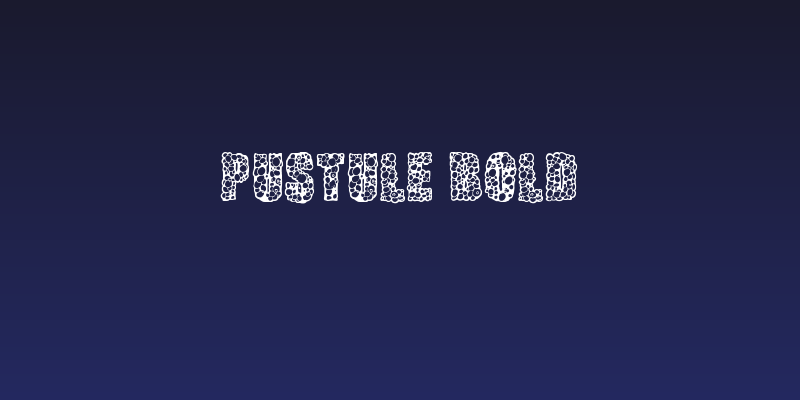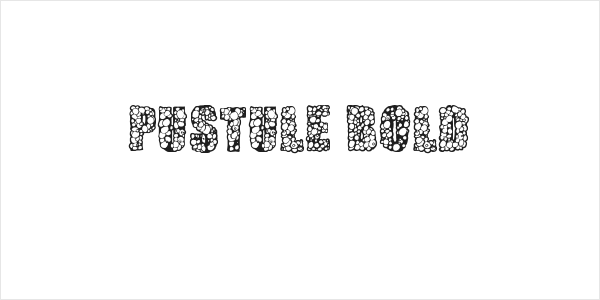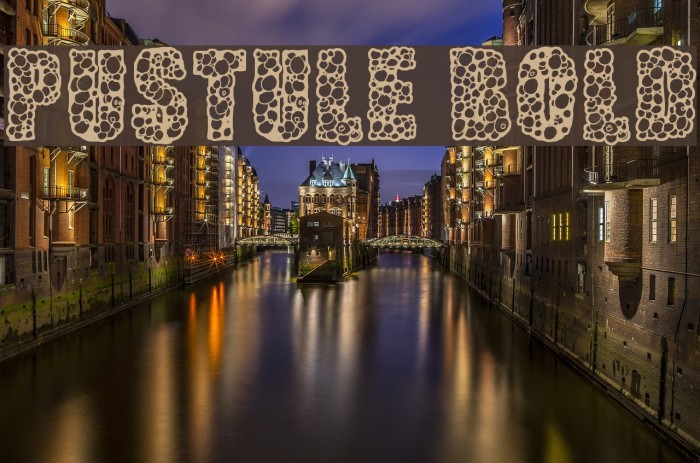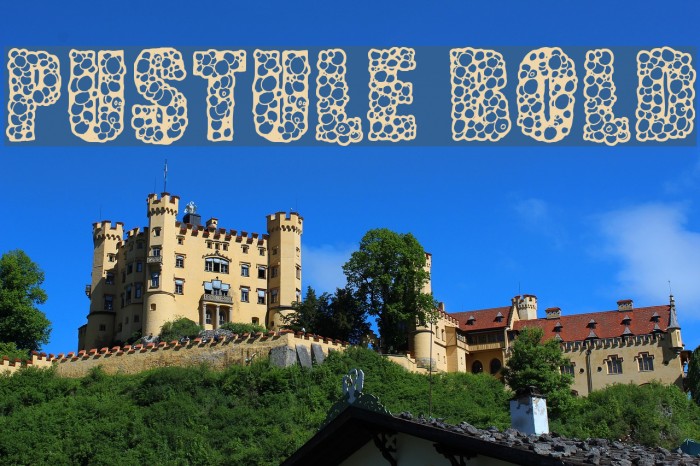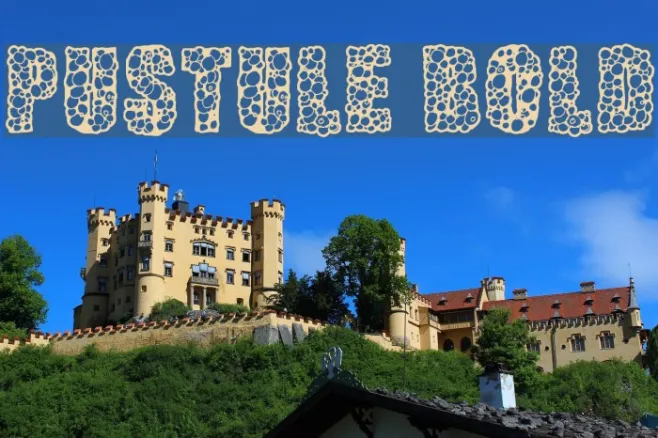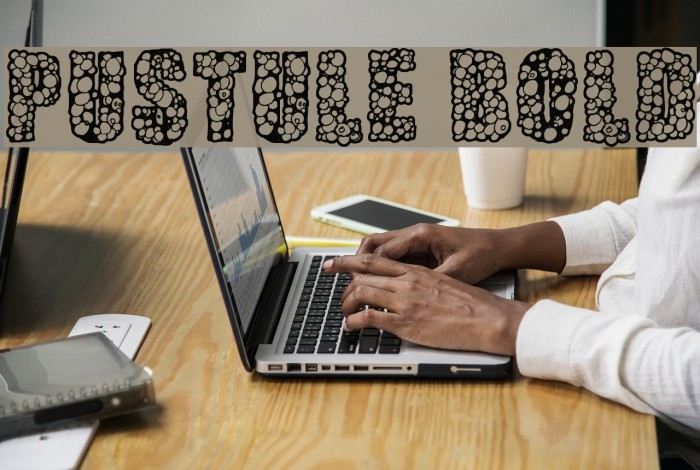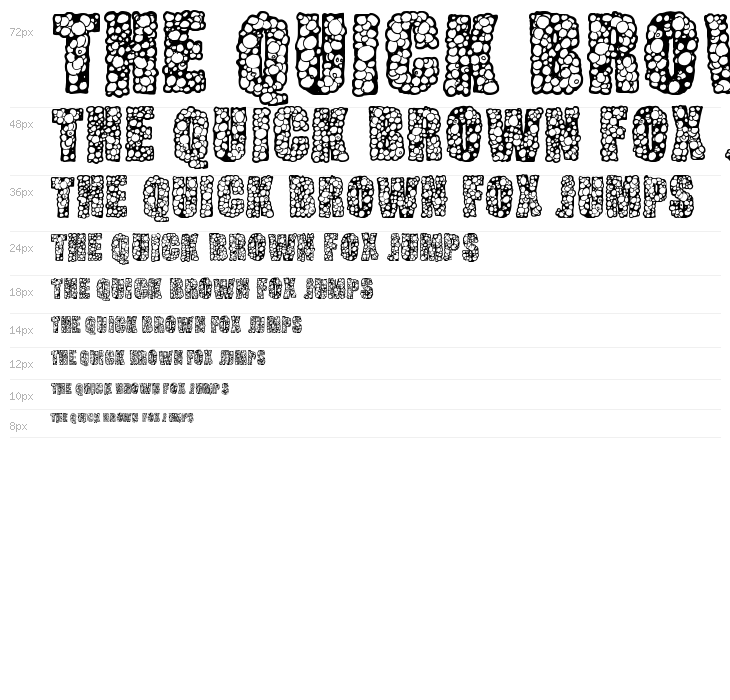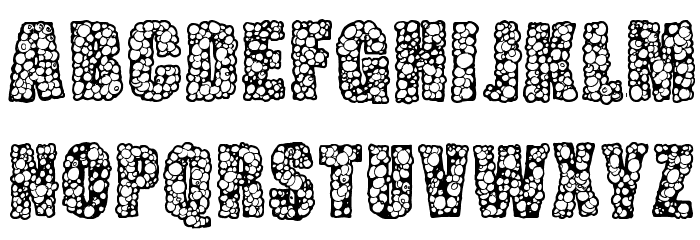
Pustule Bold Font
Pustule Bold Description
This font features a highly decorative and playful design, characterized by its unique bubble-like texture that fills each letter. The bold, rounded forms are filled with various-sized circles, creating a dynamic and eye-catching appearance. This font stands out due to its intricate detailing and whimsical style, making it ideal for creative and unconventional projects. The uppercase and lowercase letters maintain a consistent design, ensuring uniformity across different text applications. The font's distinctiveness makes it unsuitable for body text but perfect for grabbing attention in headlines or logos.
| Proposed Projects | Perfect for children's book covers, playful branding, party invitations, or any project needing a fun and unique typeface. |